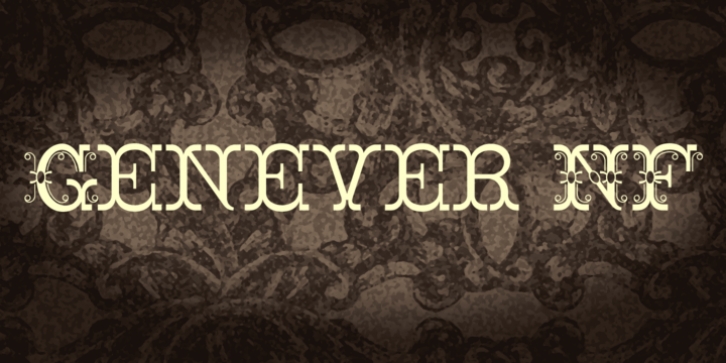
London’s Reed and Fox 1874 specimen book featured two faces, Viennese and Corinthian, combined here in one elegant decorative face. Both versions support the Latin 1252, Central European 1250, Turkish 1254 and Baltic 1257 codepages.